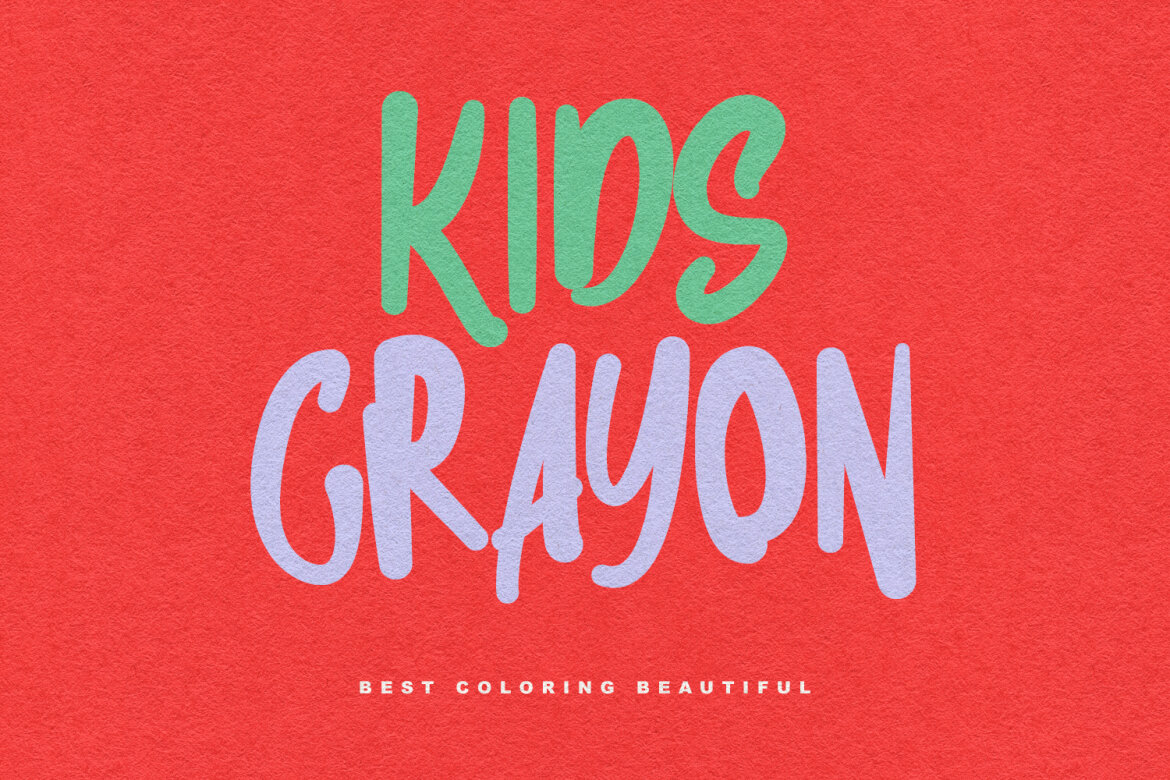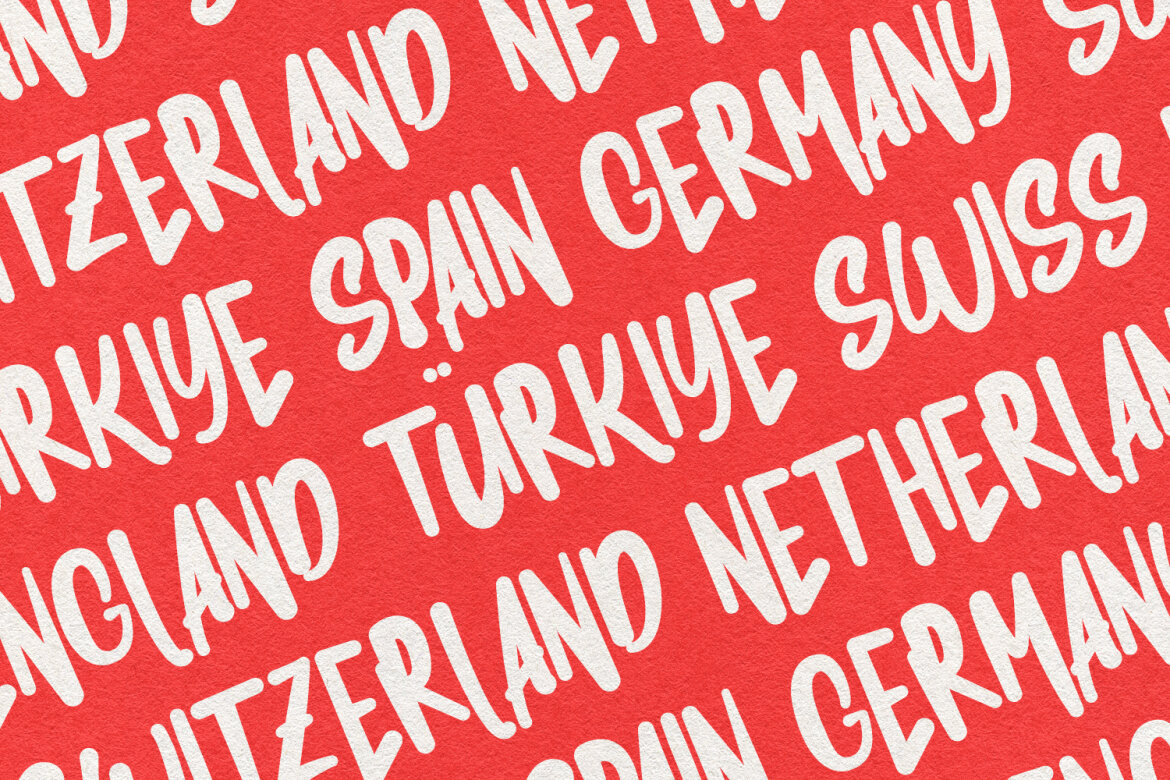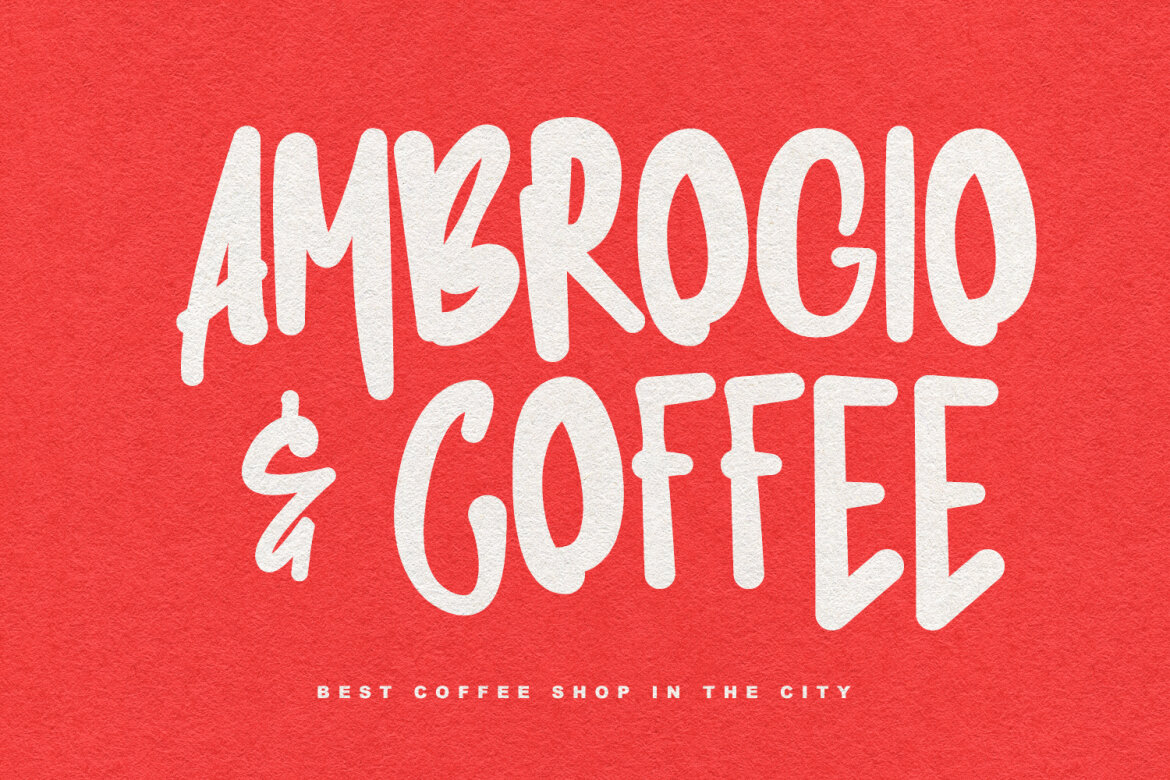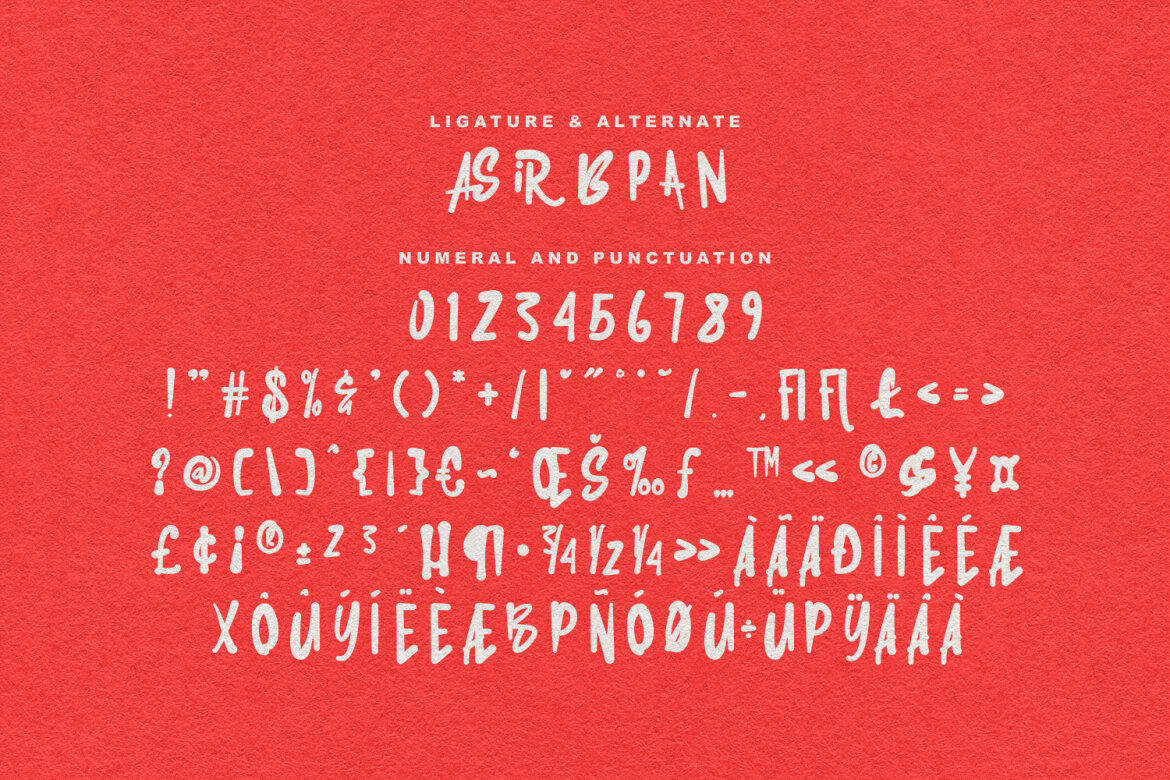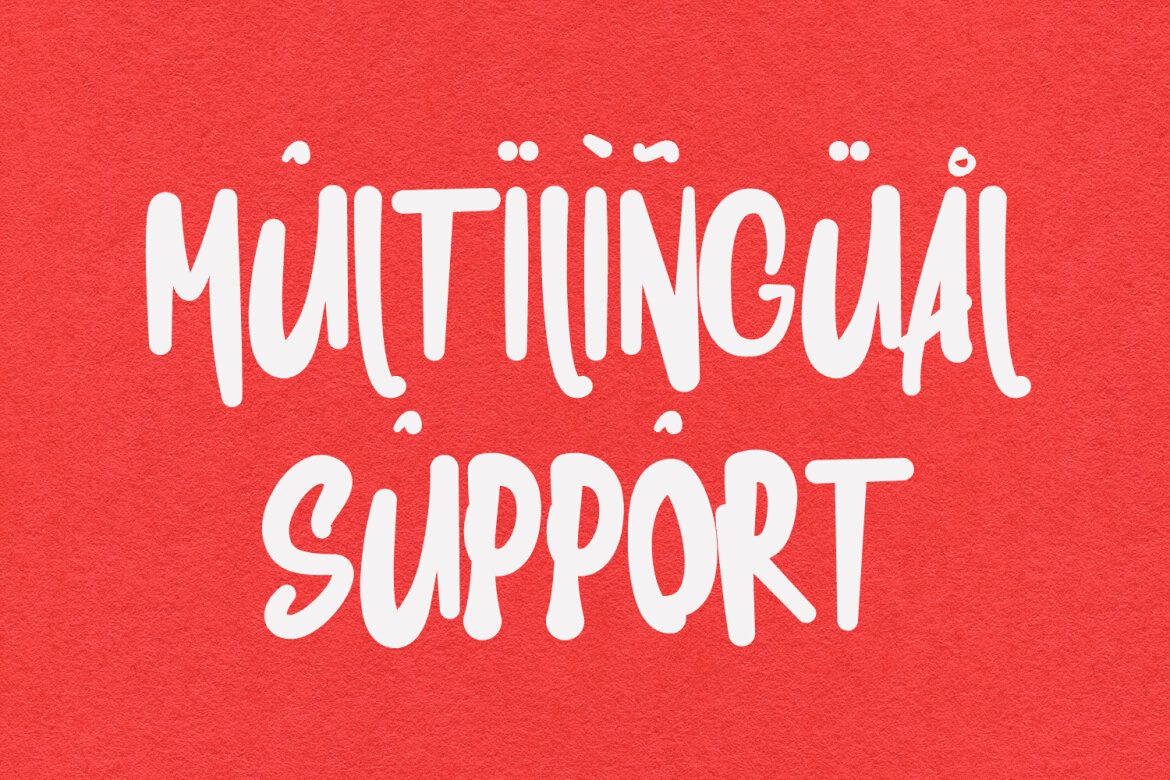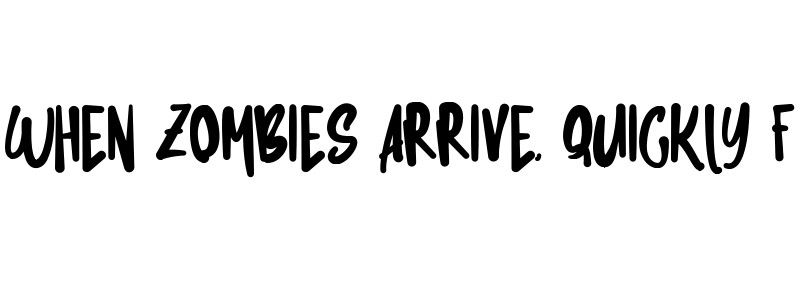
Aspan Handmade Brush FREE Font
Aspan
Aspan handmade brush display font, fun character with alternates and ligatures. To give you an extra creative work. Aspan handmade brush display font support multilingual language.